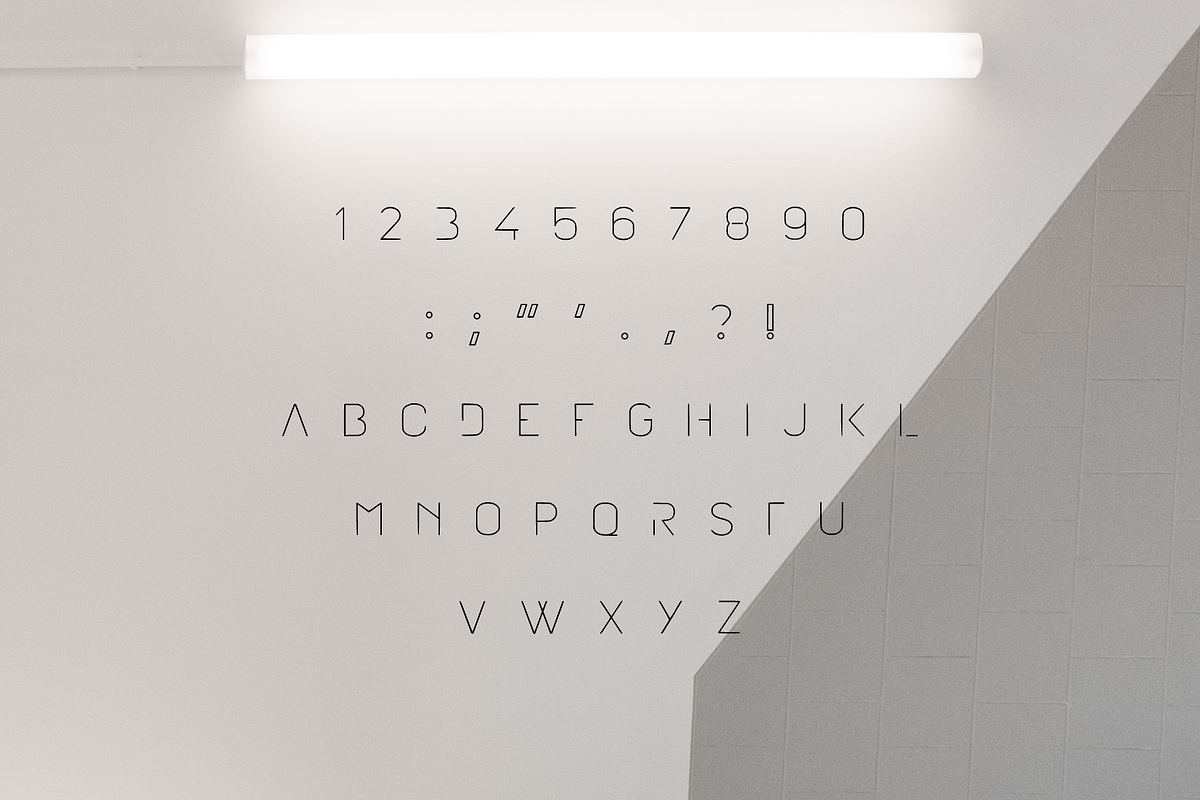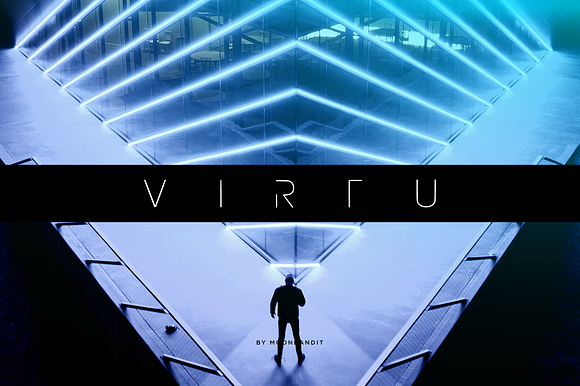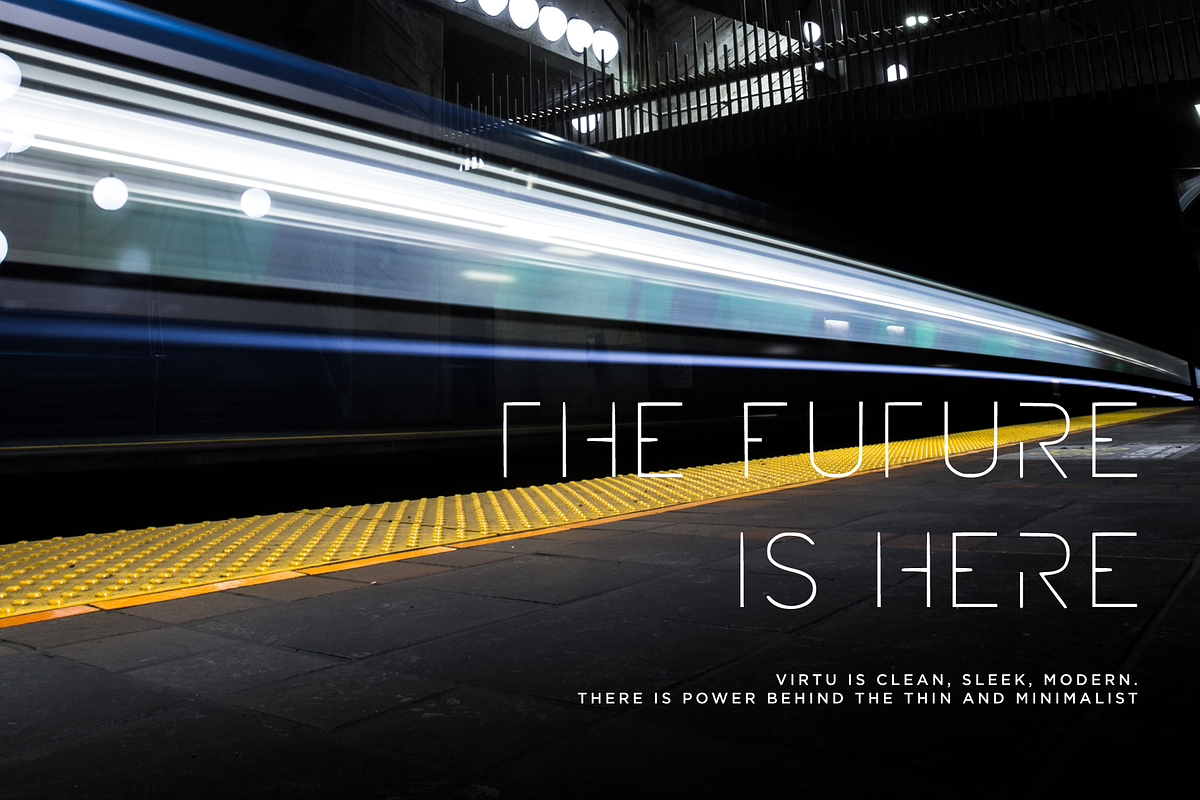
VIRTU - modern minimalist font
Virtu is a modern minimalist font. it is sleek, thin and clean. perfect for technology theme
VIRTU - modern minimalist font by MoonBandit fits naturally into Branding, posters, packaging, typography.